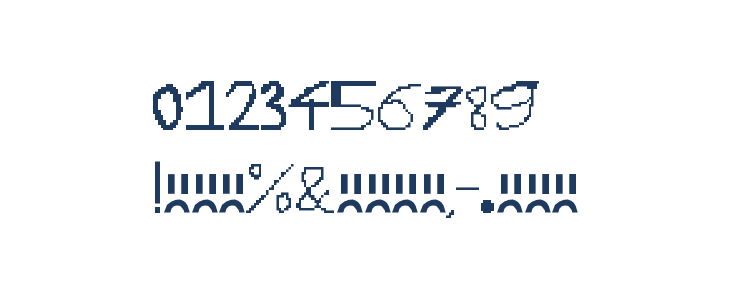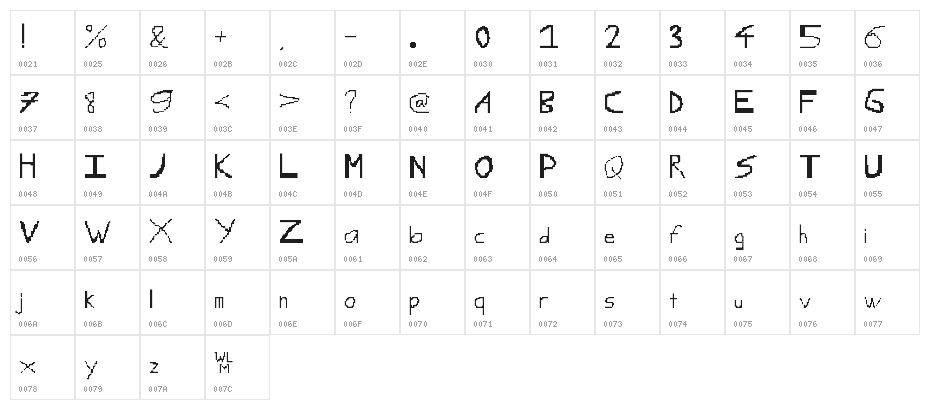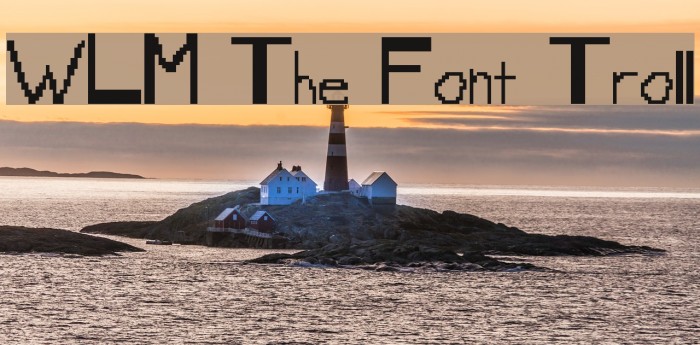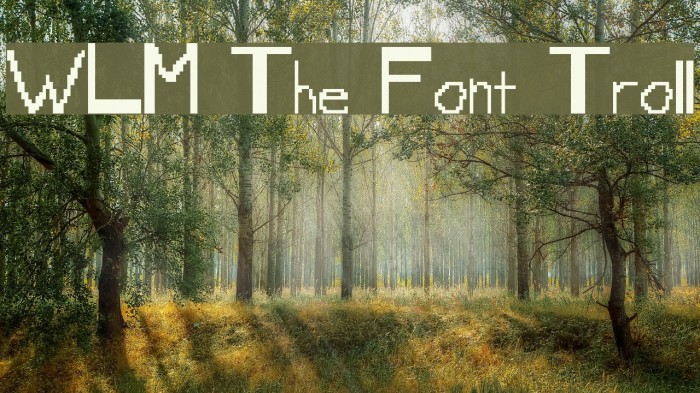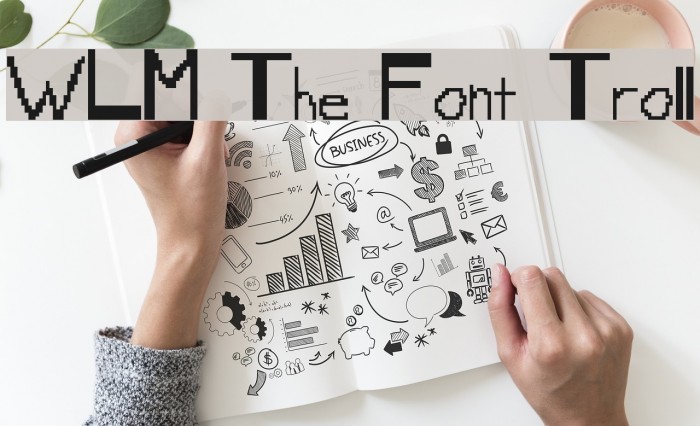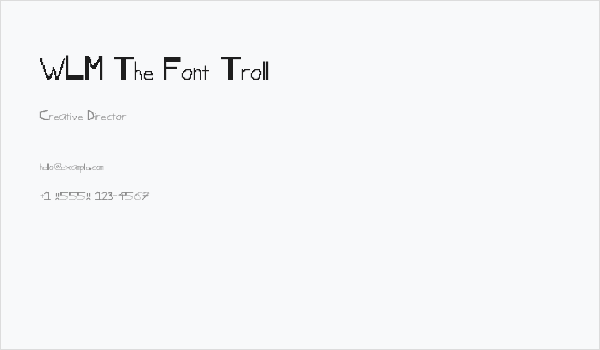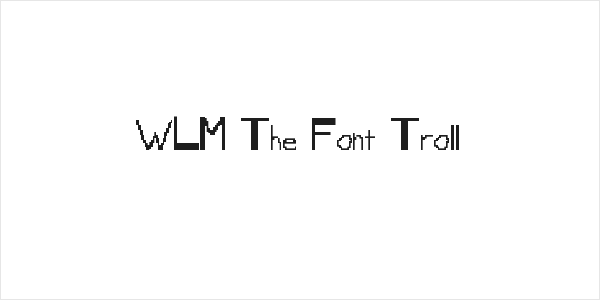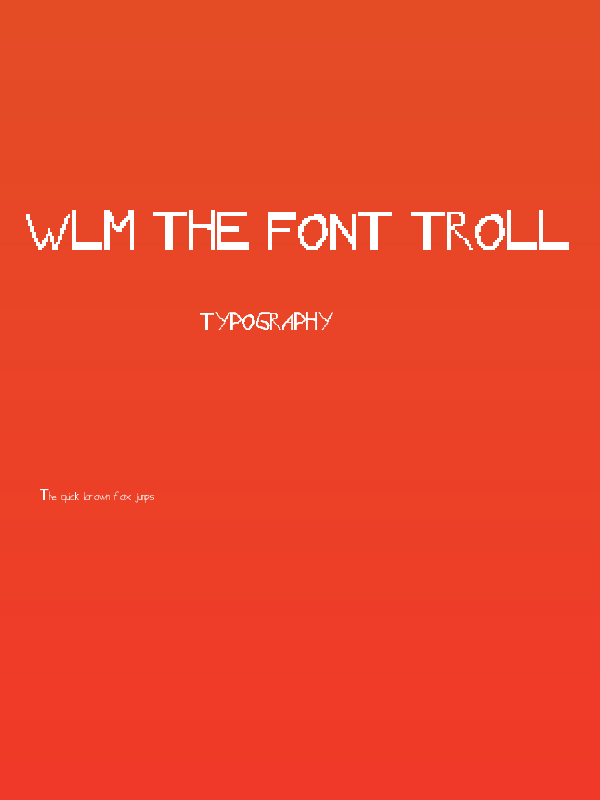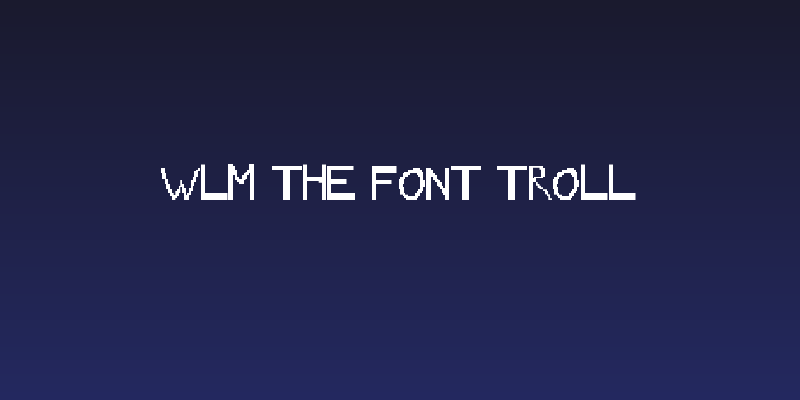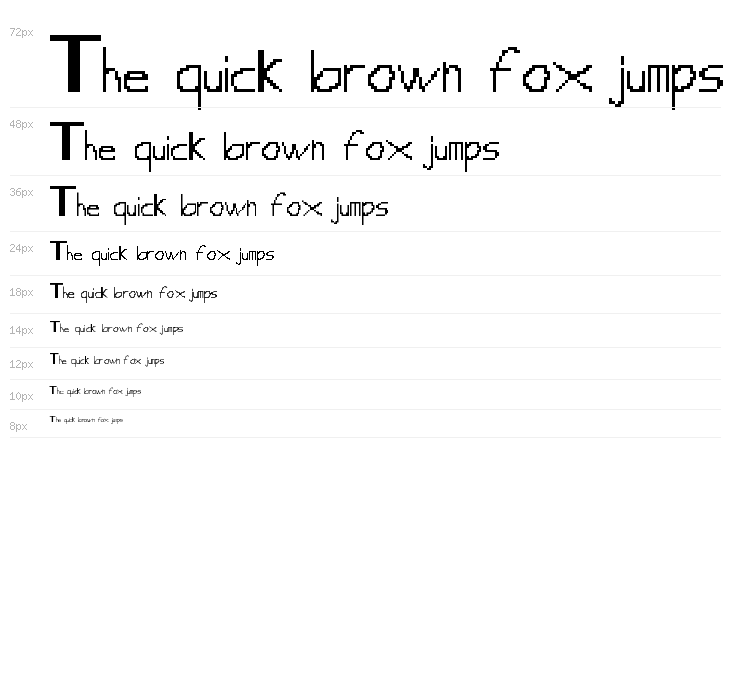
WLM The Font Troll Font
WLM The Font Troll Description
This font features a playful and quirky design, characterized by its irregular and jagged lines that give it a hand-drawn appearance. The uppercase letters are bold and angular, with unique cuts and curves that add a sense of movement and energy. The lowercase letters maintain the same whimsical style, with some characters having unexpected angles and strokes. Numbers and special characters follow the same design principles, ensuring consistency throughout. This font's distinct style makes it stand out, offering a creative and unconventional look.
| Overall Style | Playful, Quirky, Hand-drawn |
| Proposed Projects | Ideal for children's books, comic strips, playful branding, and creative posters. |